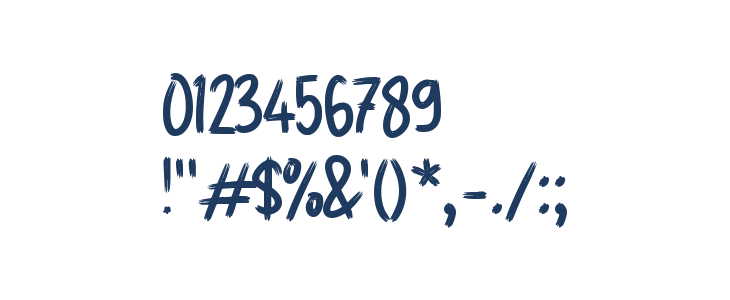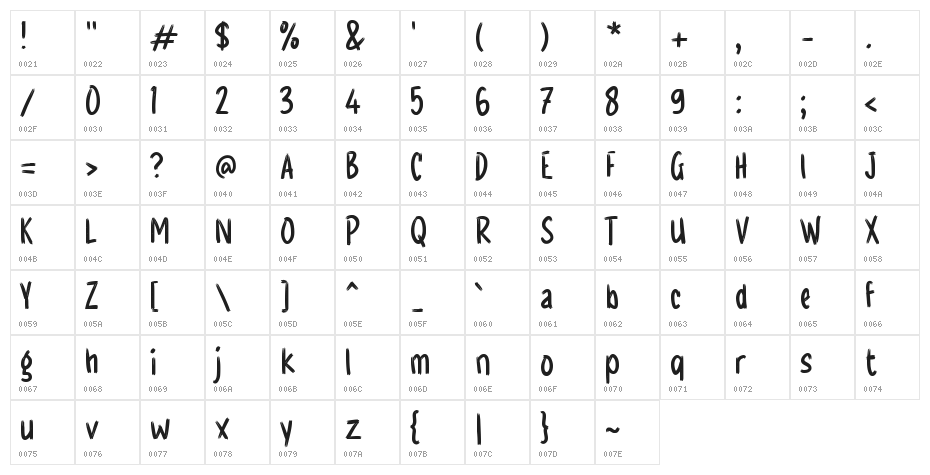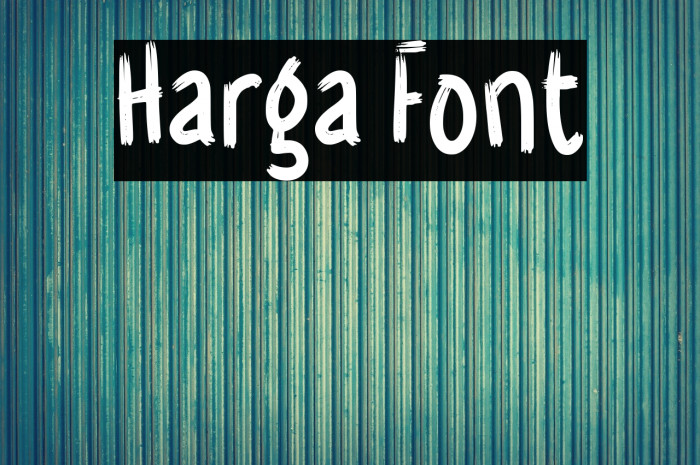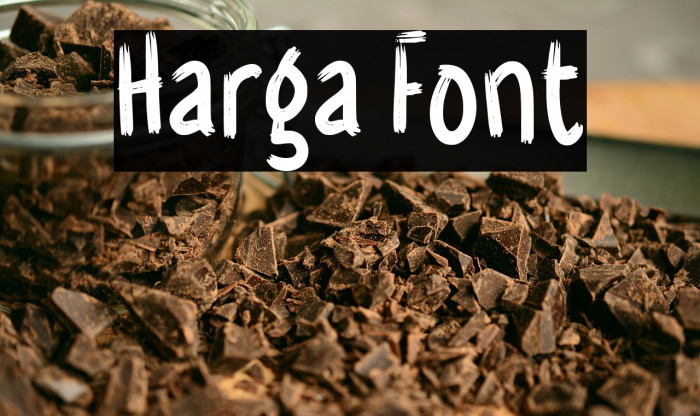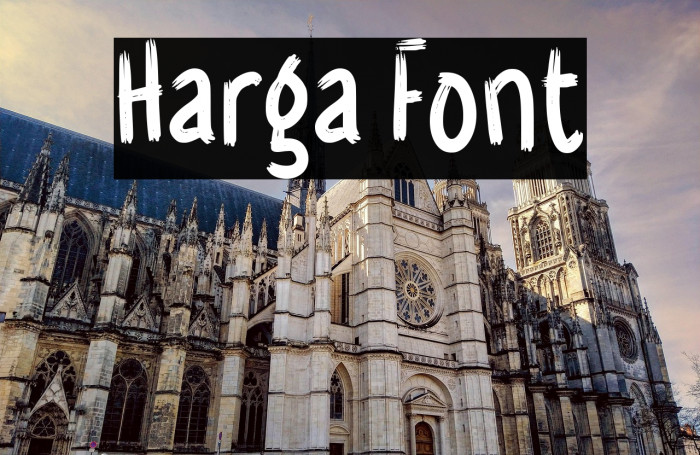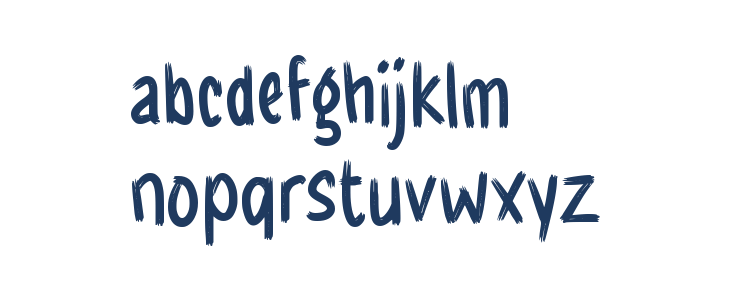
Harga Font
Harga Description
This font features a bold, hand-drawn style with a playful and energetic appearance. The strokes are uneven and textured, giving it a dynamic and artistic feel. Each character is distinct, with varying thicknesses that add to its informal and casual vibe. The uppercase and lowercase letters maintain a consistent style, while the numerals and special characters complement the overall design. This font is well-suited for projects that require a touch of creativity and individuality.
| Proposed Projects | Ideal for posters, social media graphics, children's books, and creative branding. |